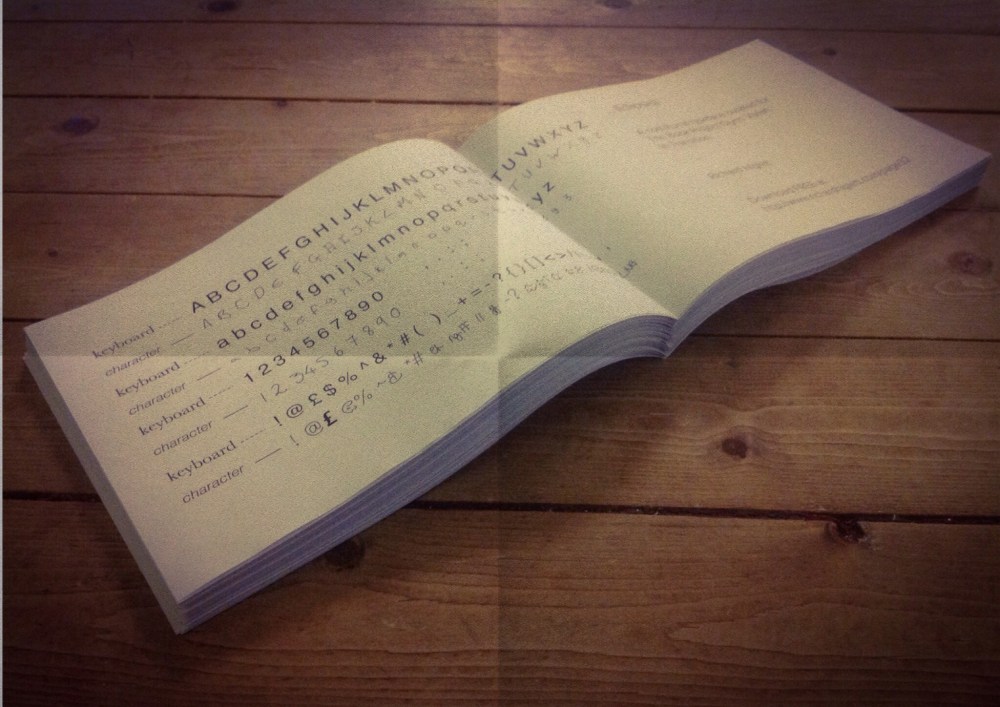
… (Ellipsis)
… is a typeface which incorporates the handwriting of people involved in the re-development of the Glynn Vivian Art Gallery.
For example; the letter ‘x’ is a reproduction of the writing of the lead Architect and ‘ z’ the hand of the Curator. Other letters replicate the hand writing of bricklayers, decorators, gallery technicians, education staff and contractors. The typeface celebrates ‘the sum of the parts’ that make the re-development of the Glynn Vivian Art Gallery possible.
The title refers to a pause in writing and the pause in the history of the building while suggests the anticipation of the re-opening. It is designed for use in Welsh and English with lesser used symbol keys assigned to Welsh letters such as Ll, Ff, Ch, Ng. It is intended to be used primarily for communications between departments at the gallery and is intentionally informal.
… (Elipsis)
Teip yw … sy’n ymgorffori llawysgrifen cyfranogwyr yn y broses o ailddatblygu Oriel Gelf Glynn Vivian.
Er enghraifft: mae’r llythyren ‘x’ yn atgynhyrchu ysgrifen y prif Bensaer ac mae’r ‘z’ yn cynrychioli’r Curadur.
Mae llythrennau eraill yn atgynhyrchu llawysgrifen bricwyr, addurnwyr, technegwyr yr oriel, staff addysg a chontractwyr. Mae … (Elipsis) yn dathlu ‘swm y rhannau’ sy’n galluogi Oriel Gelf Glynn Vivian i gael ei hailddatblygu. Mae teitl y gwaith … yn cyfeirio at saib wrth ysgrifennu a’r saib yn hanes yr adeilad, gan gyfleu’r disgwyl am ei ailagor. Mae’r teip wedi’i ddylunio ar gyfer y Gymraeg a’r Saesneg gan ddefnyddio’r allweddi anarfer ar gyfer llythrennau Cymraeg er enghraifft Ll, Ff, Ch, Ng. Bwriedir ei ddefnyddio’n bennaf ar gyfer cyfathrebu rhwng adrannau yn yr oriel ac yn anffurfiol.